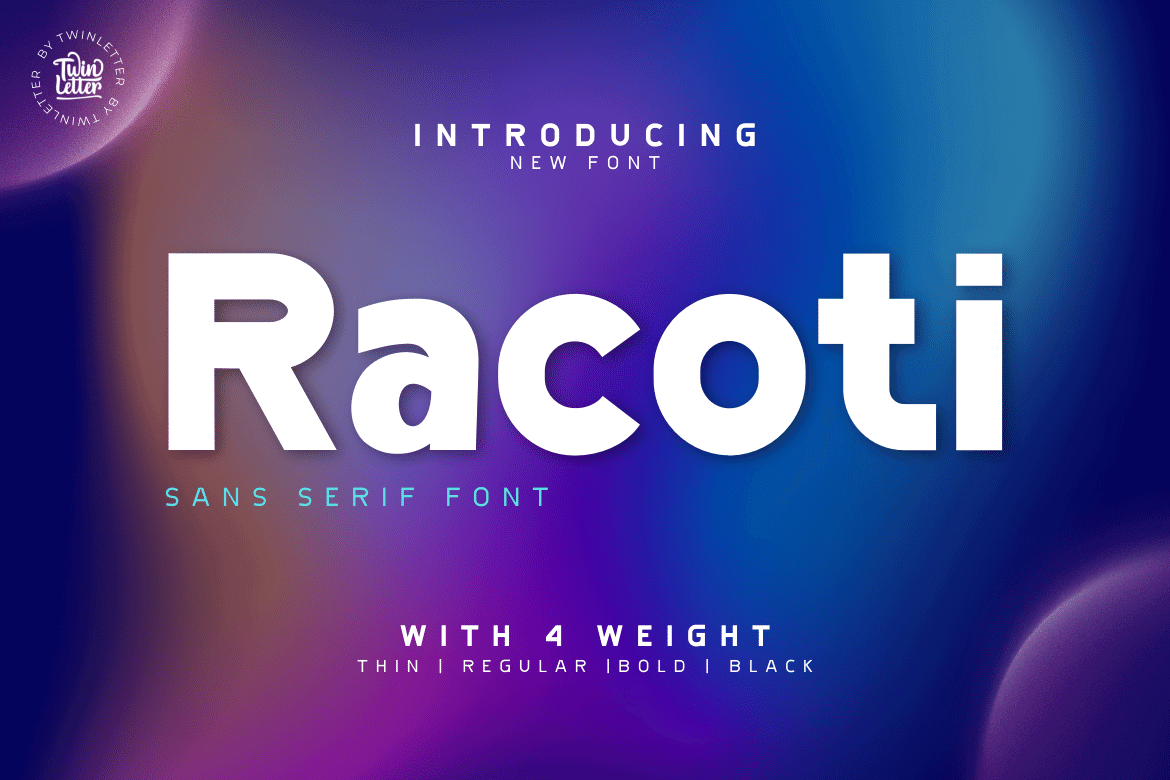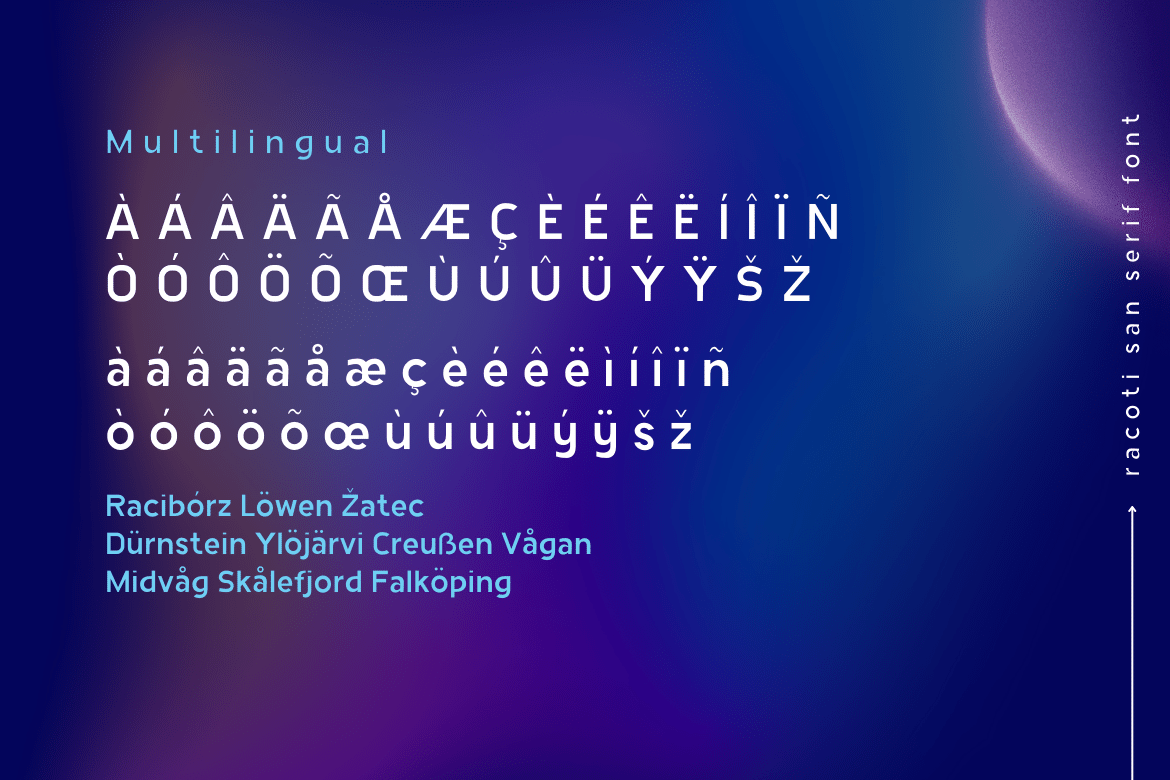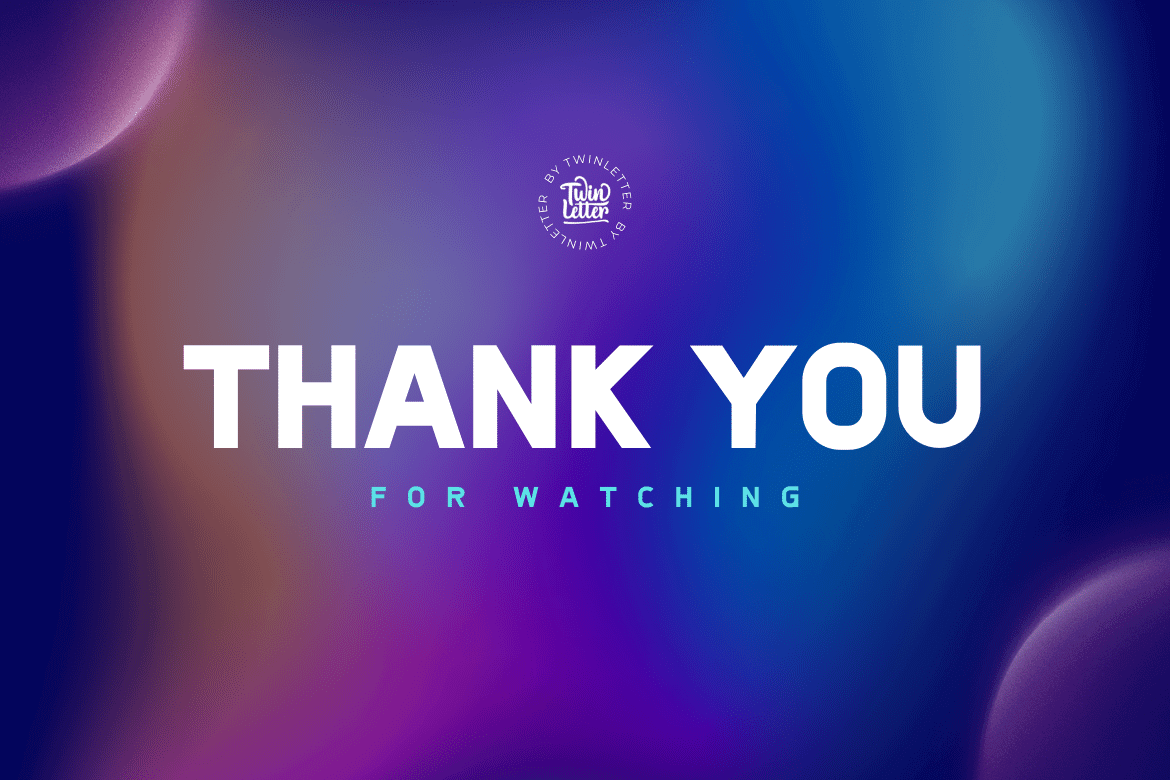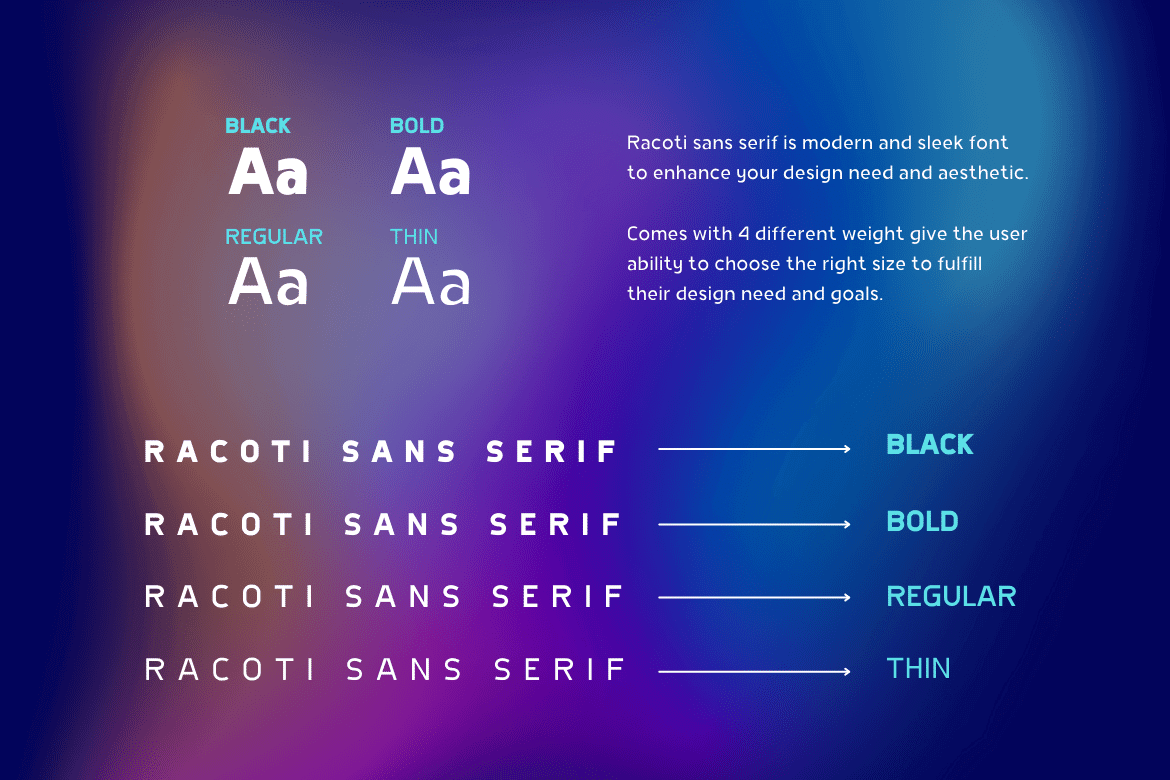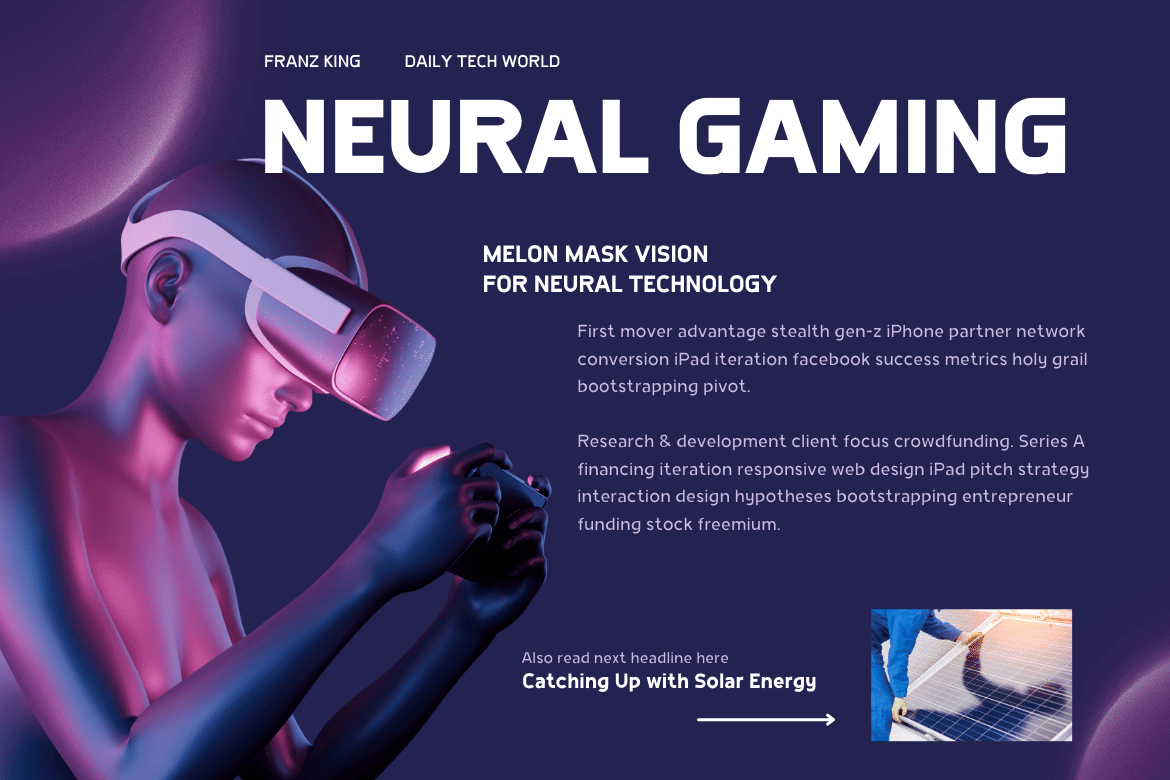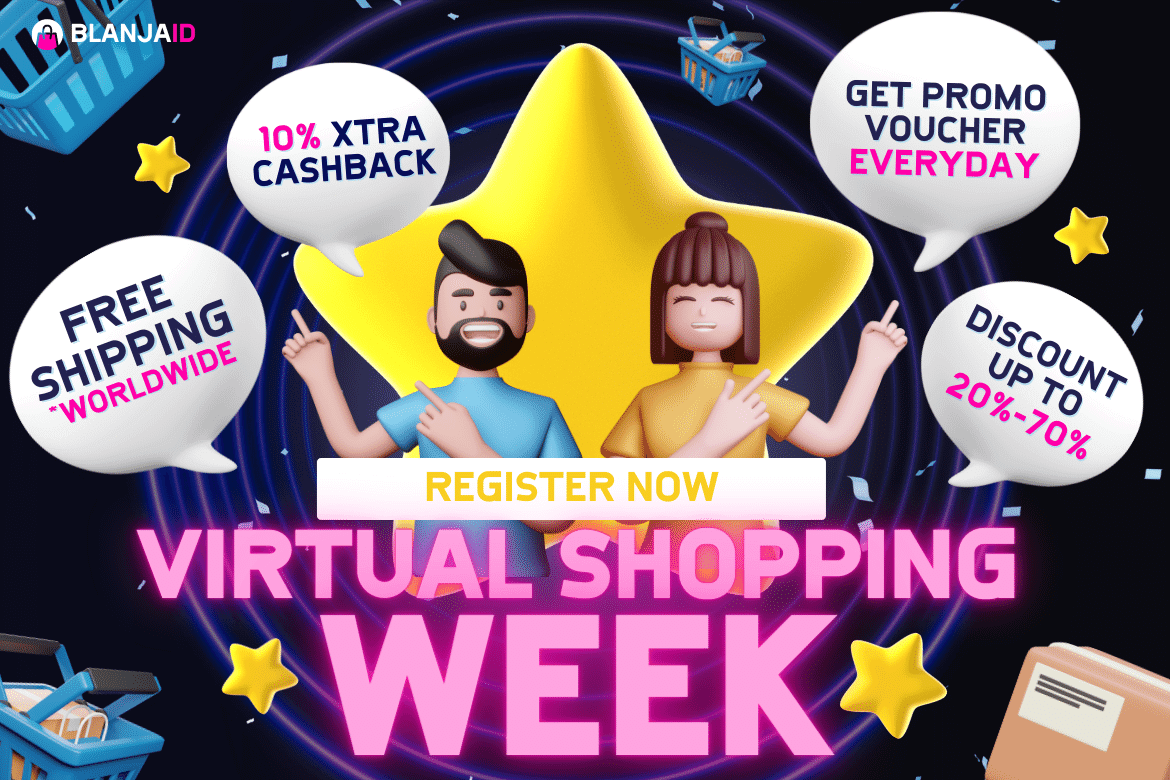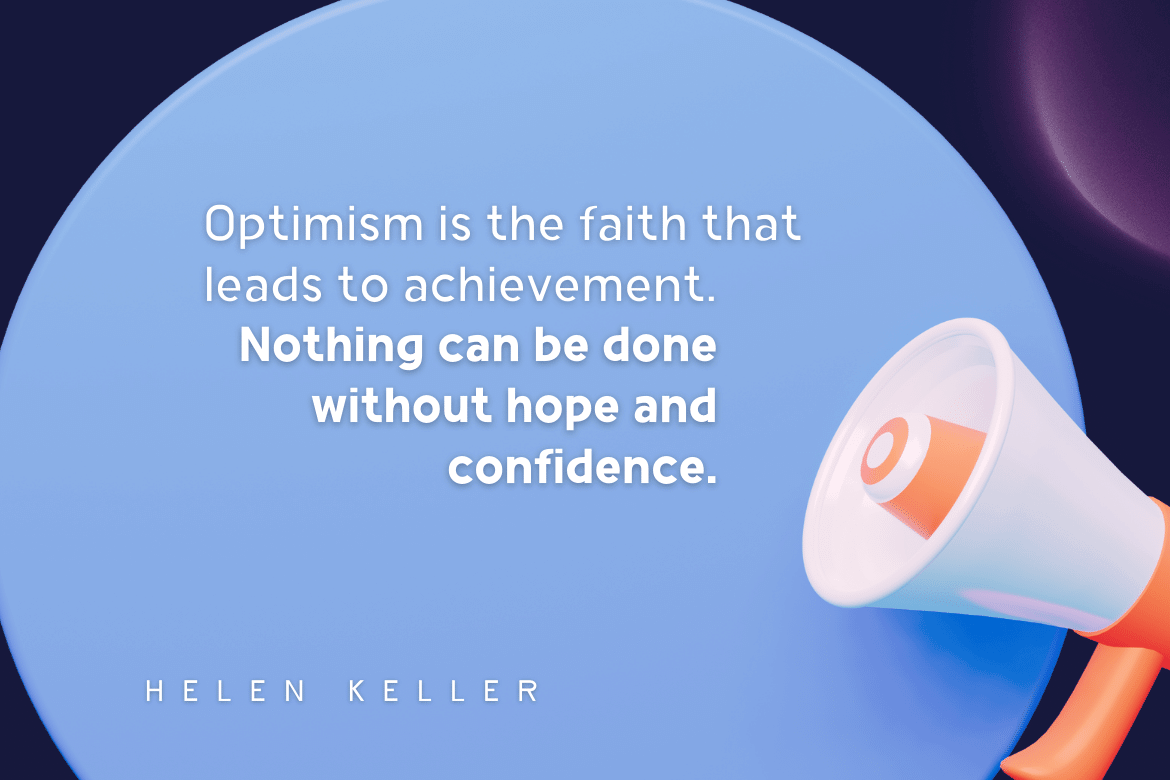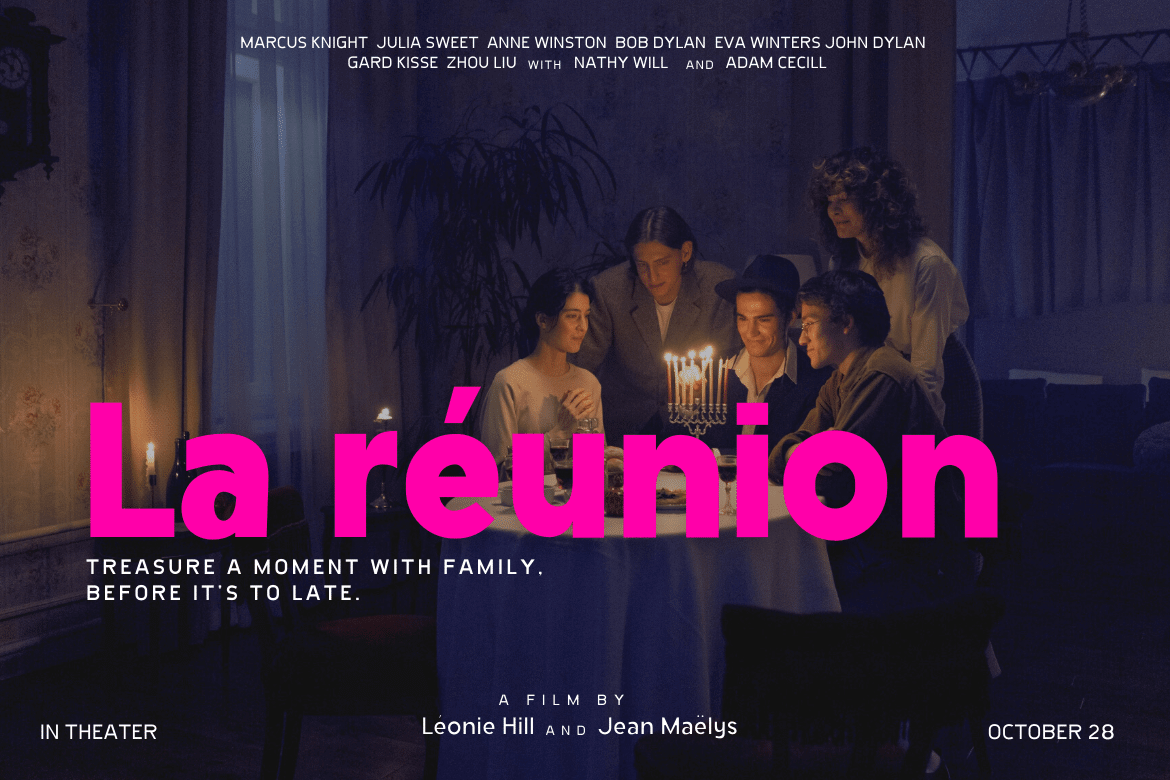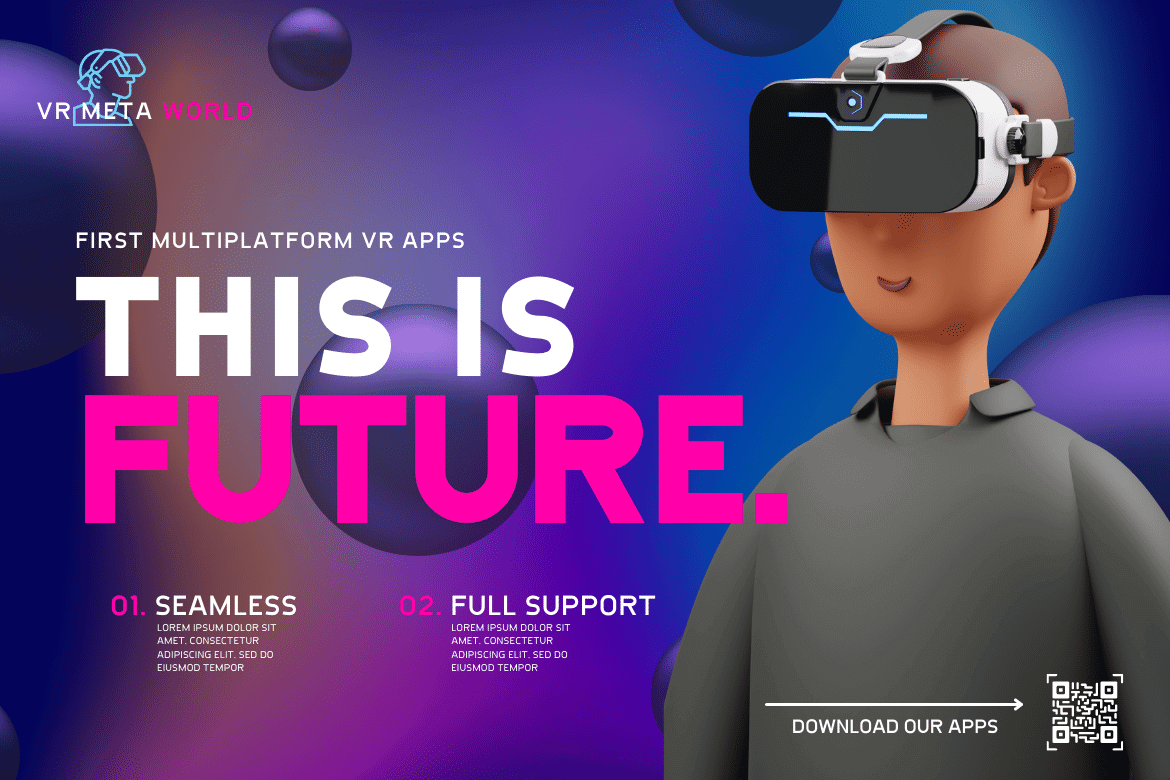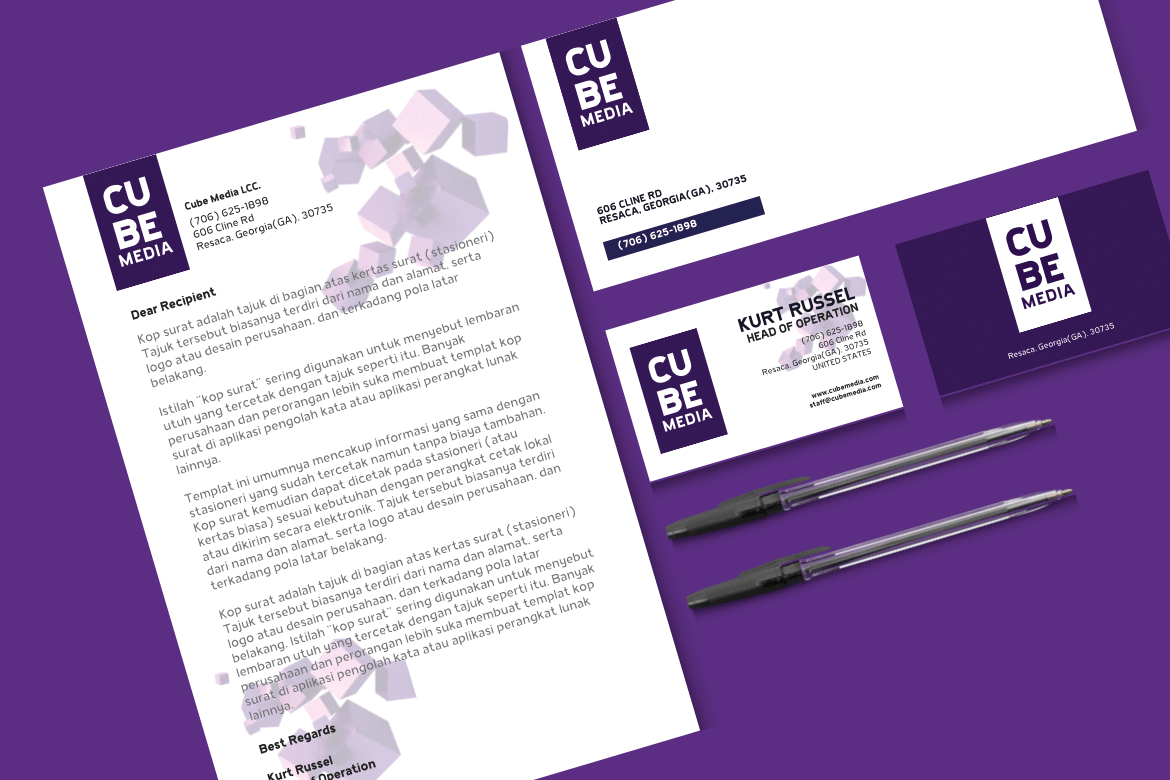
Racoti
Racoti is a sans serif font with four weights: Light, Regular, Medium, and Bold. It has a simple, calm, and elegant aesthetic. This font is ideal for a wide range of projects, including quotes, websites, logos, greeting cards, branding materials, and more!
• Fonts include multilingual support for; Afrikaans, Albanian, Croatian, Czech, Danish, Dutch, English, Estonian, Finnish, French, German, Hungarian, Italian, Norwegian, Polish, Portuguese, Slovak, Slovenian, Spanish, Swedish